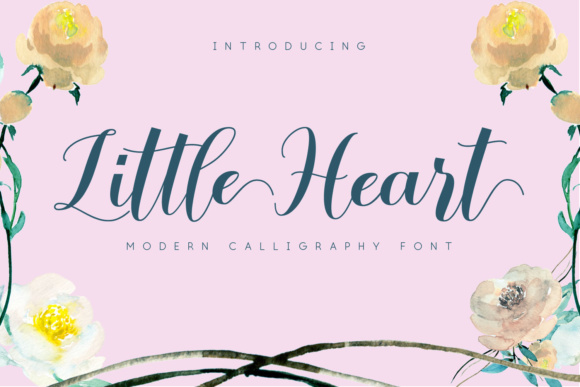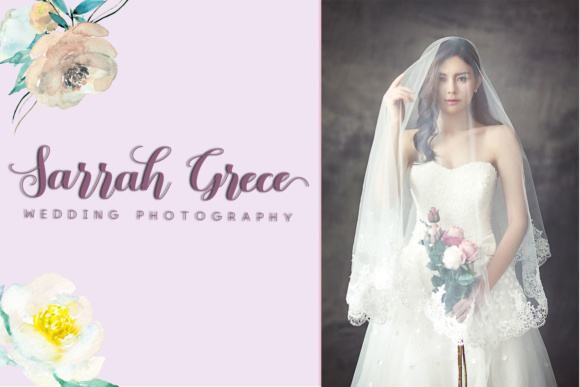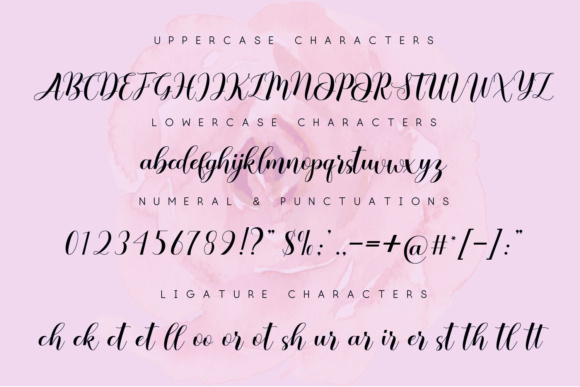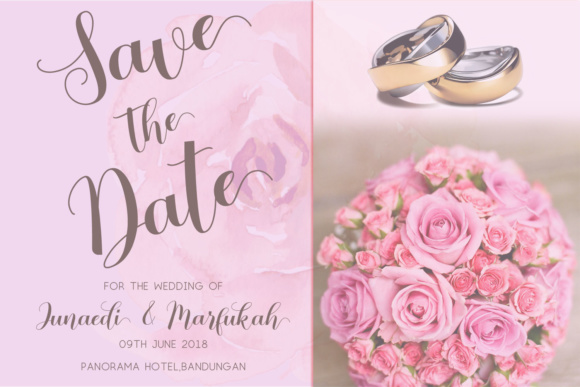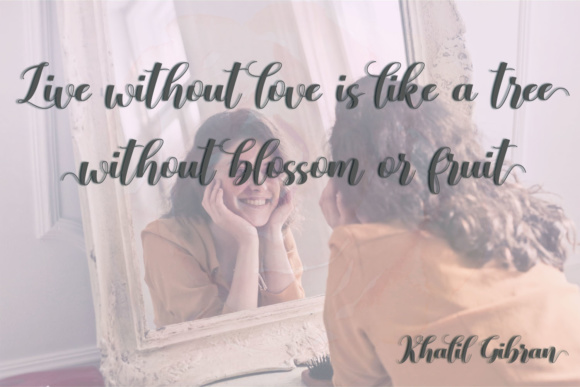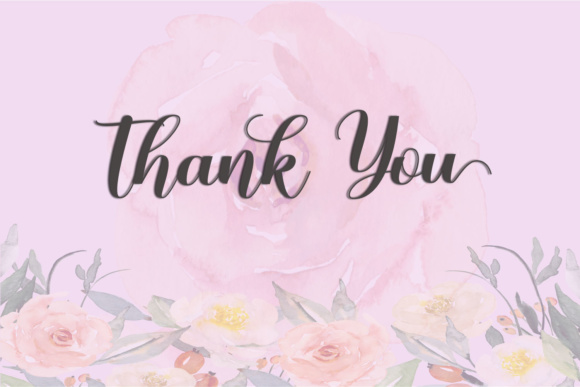
Little Heart Font
About Little Heart Font
Little Heart is a font with a big heart: this handcrafted calligraphy script looks absolutely perfect in special event designs, and comes with tons of stylistic alternates so you can create completely unique and compelling typographic designs.